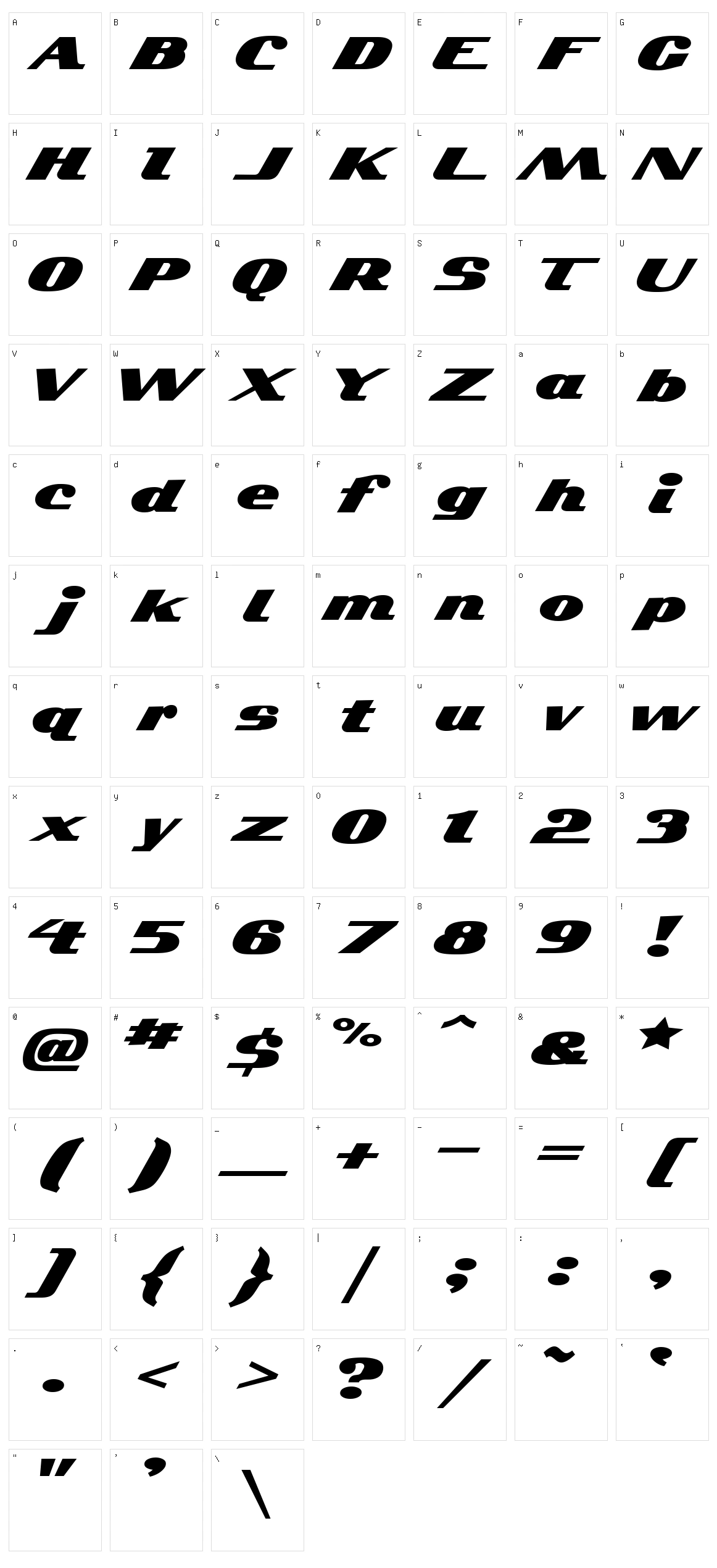
Description: "Kelvinized" is a "retro" stylized font loosely based on the logo of the old Kelvinator® refrigeration line from years past.
Kelvinized has a nice 1950's retro-industrial feel and has been used for many corporate logos as well as being
integrated within various media including television and print.
Kelvinized is unique as it was designed using a "typeface anatomy kit" which are a set of rules, including feature notations,
angles, measurments, template, styling suggestions and other nuances derived from the shared apparent design-language elements
of a finite number of existing characters that make up an existing logo, for instance.
The kit is then used for the creation of any other character whose likeness implies that of the original logo typeface,
also providing a more 'perfected' and consistent version of each original character. The additional new characters are then
difficult to determine as never-have-been created along side the originals.
This is similar to the way 'fake' human faces can be created using biometrics data from just a few sample individuals.
The characters shared by, and implied from the original Kelvinator® logo have not been copied by any mechanical or digital
means, but were recreated 'blindly' via the rule-set so character (likeness) must be considered a parody and not a derivative.